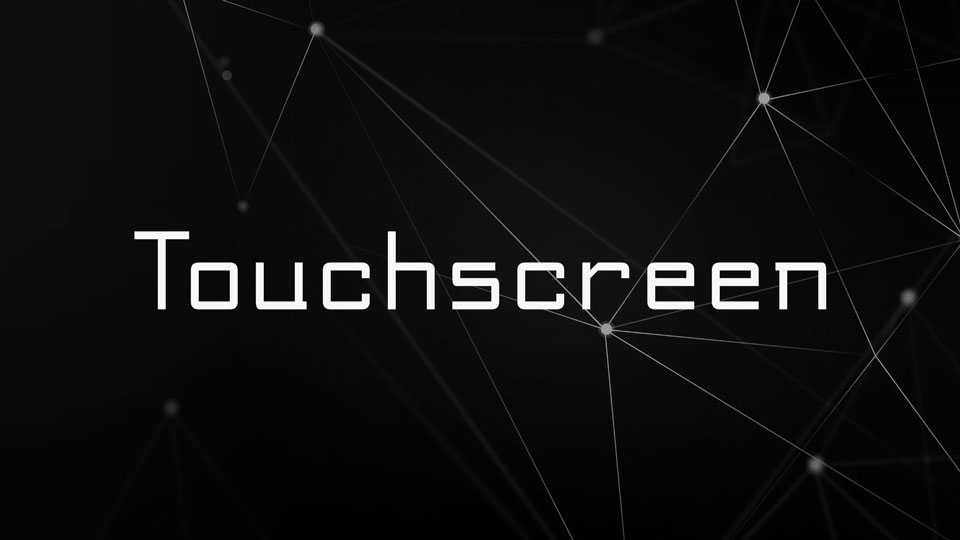
Download Touchscreen font, a monospaced typeface inspired by the bitmap font from the HP 150, one of the earliest touchscreen computers. It captures the essence of early computing with its pixel-perfect design and uniform character width.